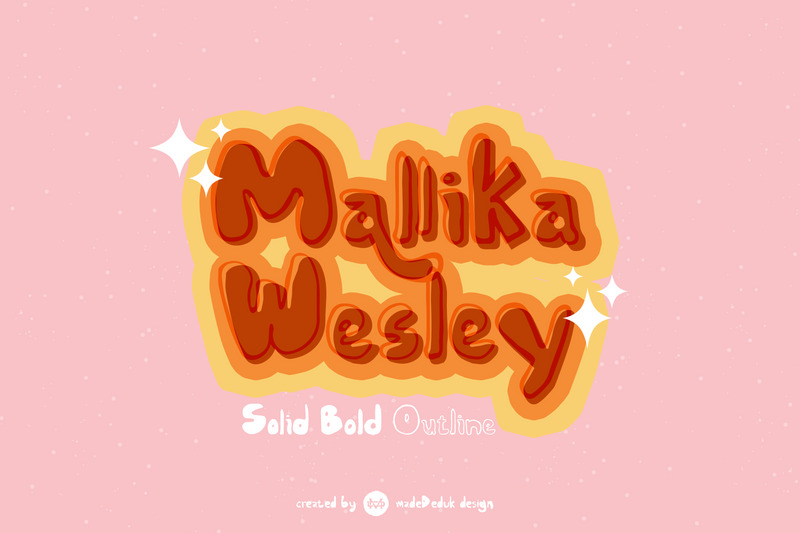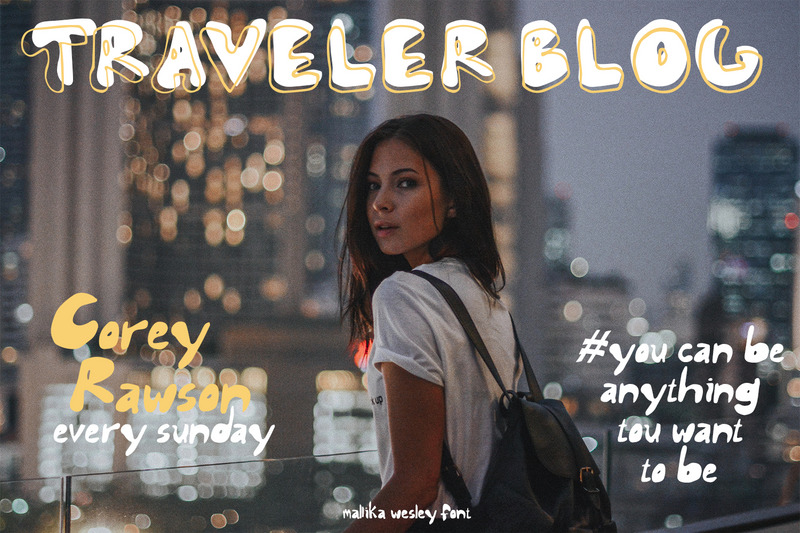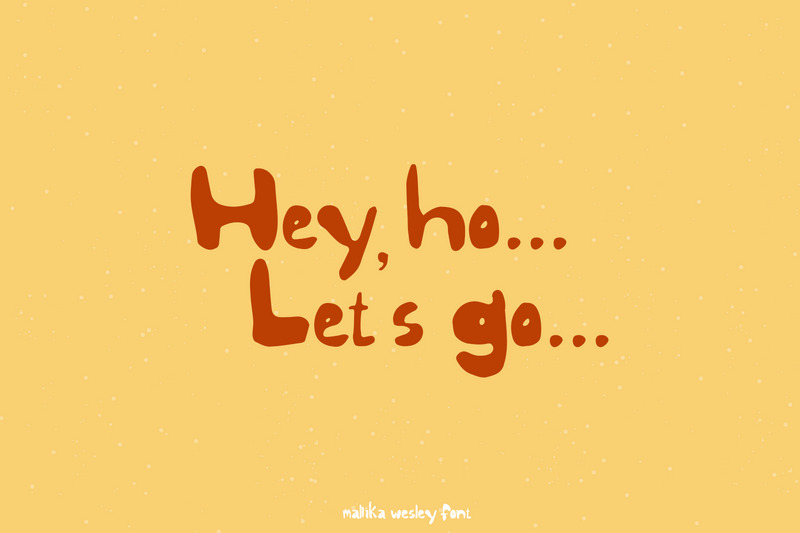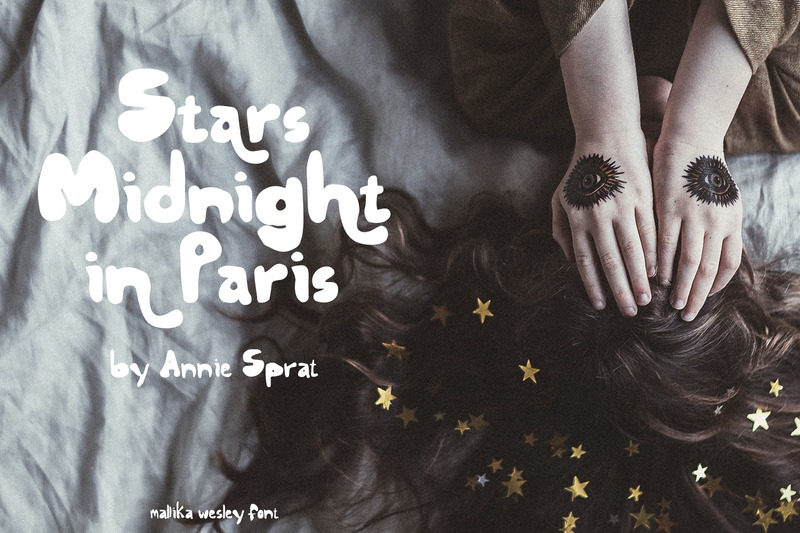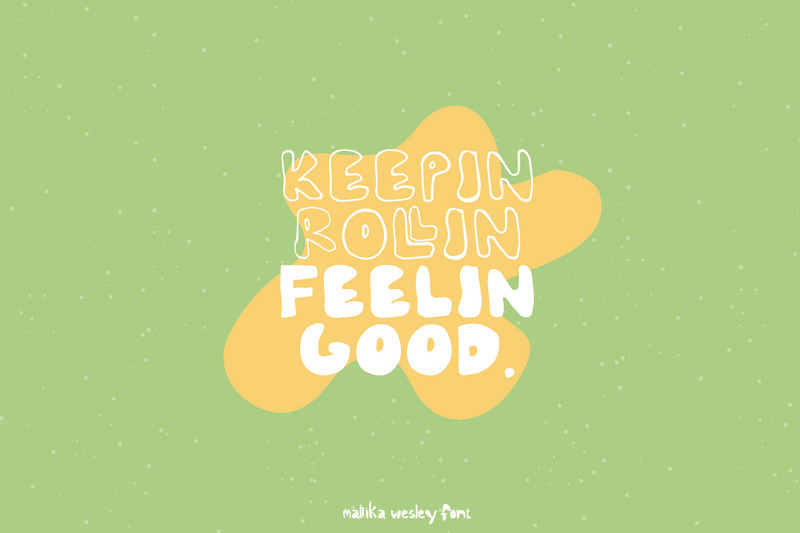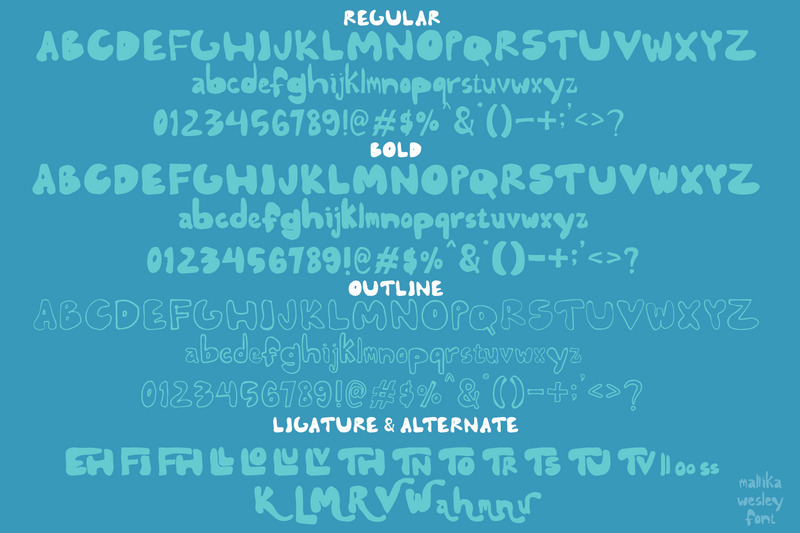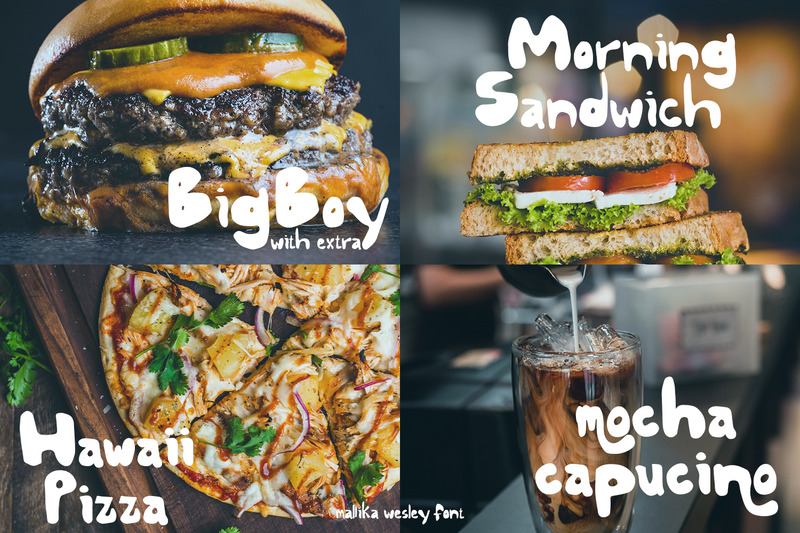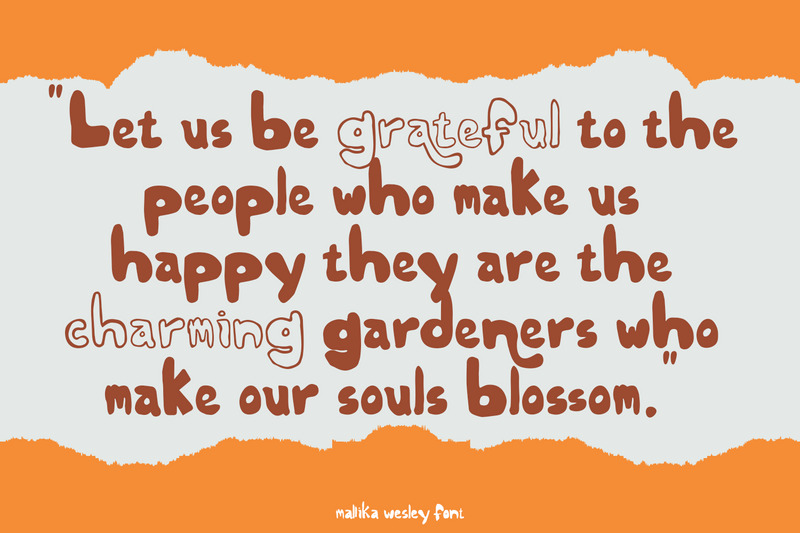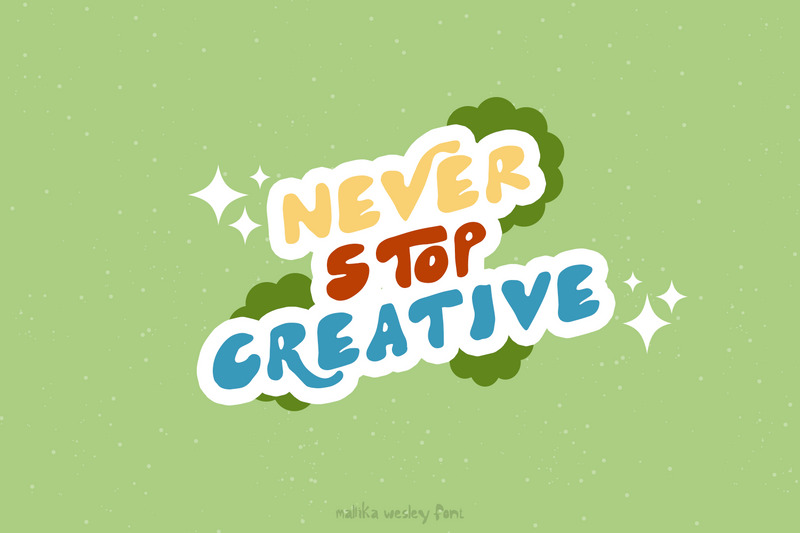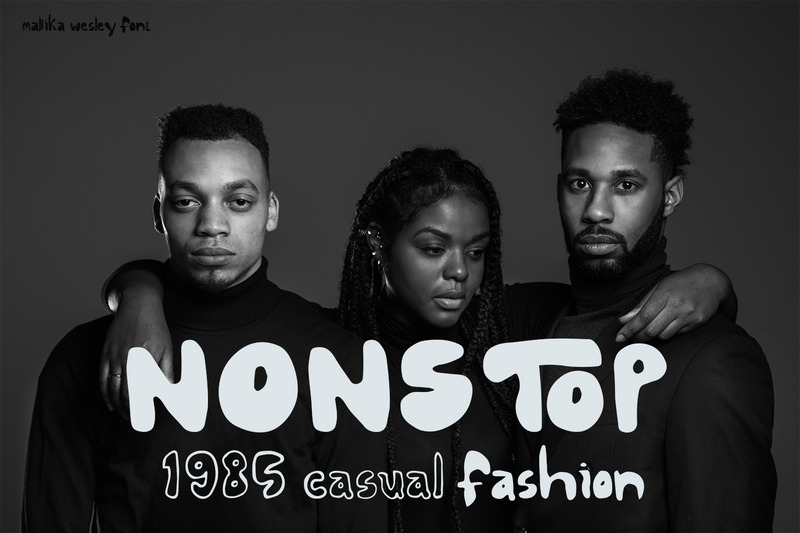
Mallika Wesley - Playful Font
Feature
•  Uppercase & Lowercase
•  Number & Symbol
•  International Glyphs
•  Multilingual support
•  Ligature
•  Alternative